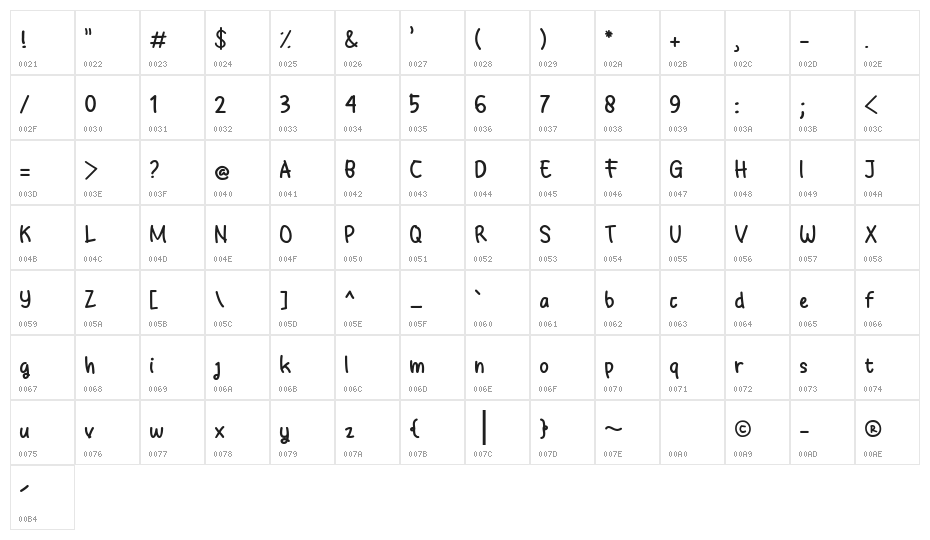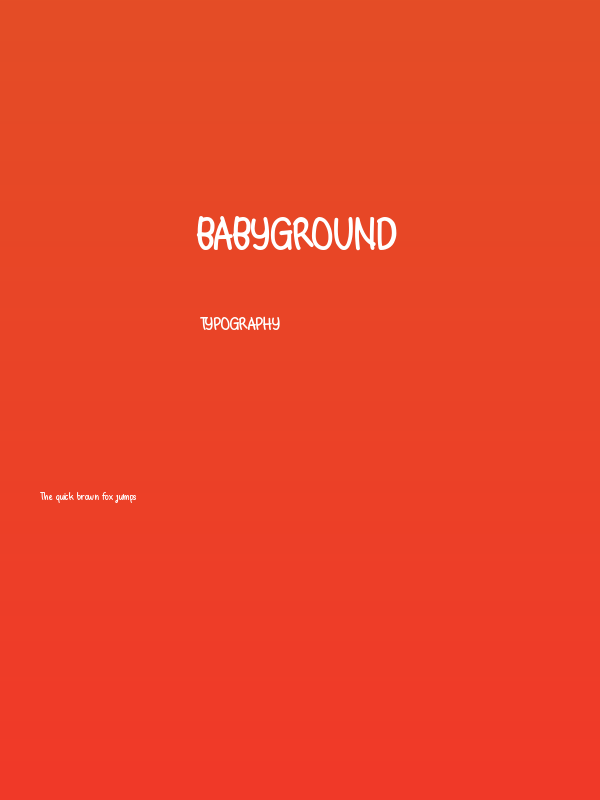
Babyground Font
Babyground Description
This playful and whimsical font features a handwritten style with rounded edges and a casual, friendly appearance. The letters are slightly irregular, giving it an organic and approachable feel. The uppercase and lowercase characters maintain a consistent style, with a slight slant that adds to the informal nature of the font. Numbers and special characters are designed to match the overall aesthetic, making it versatile for various uses. The font's charm lies in its simplicity and the subtle variations in stroke width, which add character without compromising readability.
| Use Case | Headlines, Informal text, Branding |
| Proposed Projects | Ideal for children's books, playful branding, greeting cards, and informal invitations. |